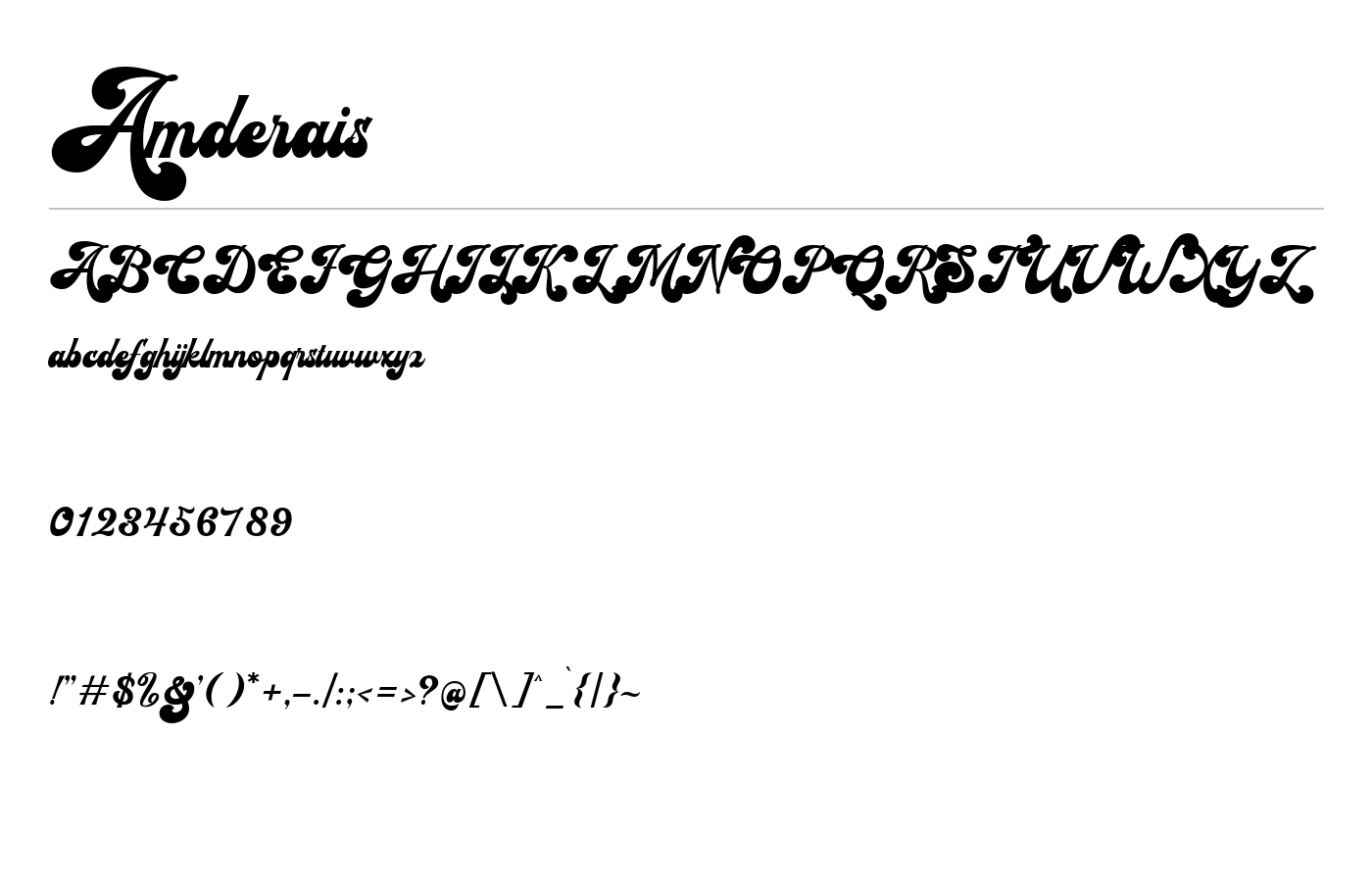
Amderais is a bold, decorative script font with a playful yet elegant feel, featuring thick, rounded strokes and distinctive swashes that create a strong visual impact. Its ornate uppercase letters contrast with a more delicate lowercase set, making it ideal for eye-catching logos, headlines, and packaging where personality and flair are desired. This font works best in creative and stylish branding projects that want to convey charm and uniqueness with a vintage-inspired touch.
Amderais Font
About Amderais Font